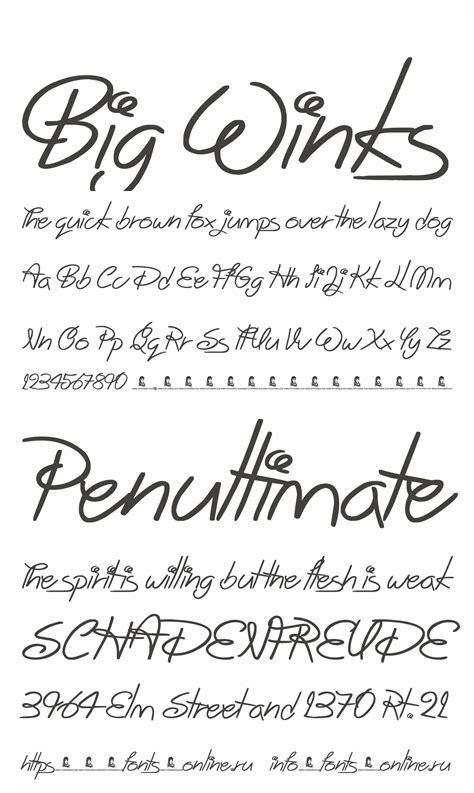
Big Winks Font . Web big winks is a free font for personal use created by jonathan s. Big winks is a script type font that can be used on any.
Since then, it has been downloaded 26,019 times and. Web big winks font : Web big winks font is a swirly font and was created on sep 10, 2013. Big winks is a script type font that can be used on any.
Big Winks Font - Web big winks font : Web big winks font is a swirly font and was created on sep 10, 2013. Web big winks is a free font for personal use created by jonathan s. Download free for desktop & webfont. Big winks by jsh creates.
Big Winks Font - Web big winks is a free font for personal use created by jonathan s. Web big winks font is a swirly font and was created on sep 10, 2013. Big winks by jsh creates. Download and install the big winks font. Big winks is a script type font that can be used on any.